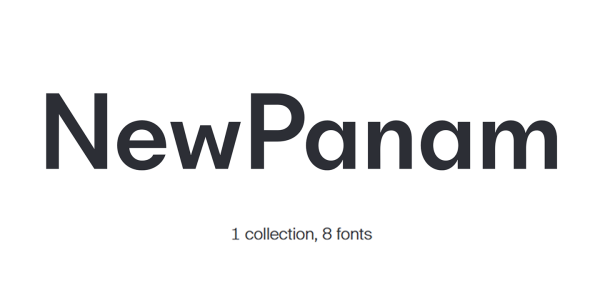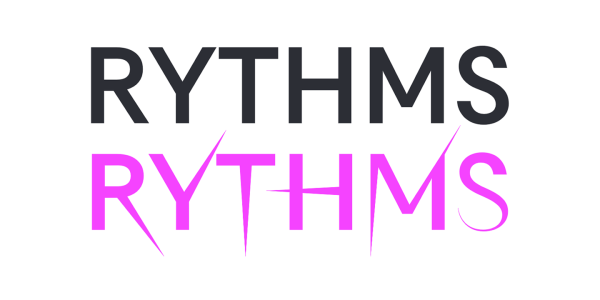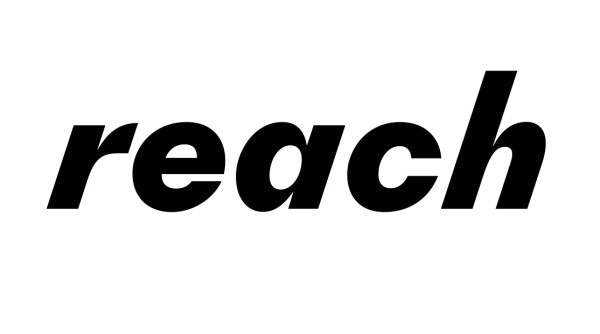
NewPanam Font
NewPanam Font, Initially part of the NewParis typeface, NewPanam Skyline is taking a little independence in 2019. Instead of complementing a family, it’s taking its unique style outside his last collection to make its own. NewPanam is a sans-serif font that still shares the same vertical proportions than NewParis and still can be combined with it harmoniously even within the same line. Think of NewPanam Skyline as a “non-contrast” sibling. Some of the signature letterforms of the serif are echoed in a stylized form, like the ‘g’ with the audaciously swinging tail, or the ‘y’ with the straight descender. Other letters like the ‘a’ exhibit a different shape that better matches the genre of the geometric sans-serif with its circular forms. The razor-sharp terminals of ‘j’ and ‘t’ add to its personality and charm. With the unmodulated strokes, the sans can step in for captions and other small text where the Didot’s hairlines are too delicate.
From now more than ever, NewPanam Skyline can be used on its own. With the different styles – now spanning four weights from Regular to Black, all with italics – it is a fully fledged family in its own right. In conformity with classic sans-serifs, the italics are oblique in nature. They set themselves apart from the upright through the unusually deep slant, which is carried over from the conventional italics of the Didot. The Skyline italics provide a sense of dynamism and urgency.
A special typographic weapon is hidden in the glyph set of NewPanam Skyline. The fonts hold expressive alternates for all capitals and many lowercase letters. Some letters take on hyper-cursive forms – most dramatically in ‘E’ or ‘w’ –, strokes accelerate and fade to hairlines, diagonals shoot into and out of the letters like thunderbolts. These “kinetic” alternates may remind you of an airplane writing a message into the sky, the stylized trace of paint left by a spray can, or the afterimage of a flashlight moved around in the dark of the night. You can access these stylistic alternates via OpenType features.